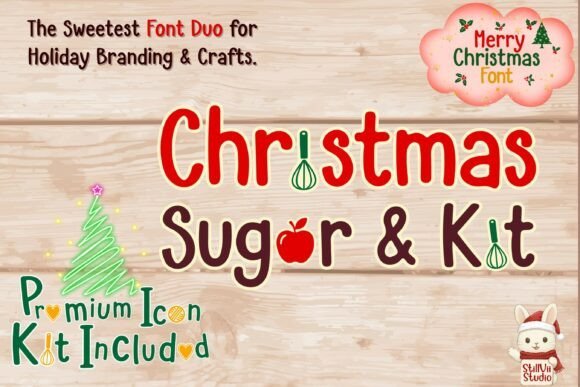
Sprinkle Some Holiday Magic!
As I sat at my kitchen table, surrounded by twinkling lights and the sweet aroma of freshly baked cookies, I couldn’t help but feel a rush of creative energy. The holiday season was in full swing, and I was itching to bring my designs to life with a dash of festive flair. That’s when I stumbled upon the perfect solution: the Christmas Sugar and Kit Duo Font.
This delightful font duo is the ultimate companion for any designer looking to add a spoonful of sweetness to their holiday projects. With the Christmas Sugar font’s soft, bubbly letterforms and the playful handwritten style, you’ll be able to evoke the joy of holiday baking and treats in your designs. Plus, with 52+ classic holiday and baking icons, you’ll have everything you need to create a cohesive and magical visual story.
Christmas Sugar and Kit Duo Font Key Features
- Unique Characteristics: This font includes a combination of elegant and playful styles, ideal for Christmas-themed designs and projects.
- Character Count: Includes a wide range of characters, including uppercase and lowercase letters, numbers, and punctuation marks.
- Language Support: Supports multiple languages, including English, Spanish, French, and more.
Christmas Sugar and Kit Duo Font Review
I recently had the chance to try out the Christmas Sugar and Kit Duo Font, and I must say it’s a mixed bag. There are some lovely aspects to this font, but it also has some limitations.
- The font is perfect for creating a festive atmosphere, especially during the holiday season. The combination of Sugar and Kit fonts gives a unique, playful feel.
- The font is highly customizable, with various options for adjusting the spacing, size, and color.
- The Sugar font has a lovely, hand-drawn feel that’s reminiscent of traditional holiday illustrations.
Limitsations ⚠️
- The Kit font can feel a bit too bold and overpowering at times, especially when paired with the Sugar font.
- The font may not be suitable for long blocks of text, as the Sugar font can be a bit difficult to read at larger sizes.
- The font lacks a more traditional holiday feel, which may not be ideal for those looking for a more classic Christmas aesthetic.
The Christmas Sugar and Kit Duo Font is a fun, playful option for adding some holiday cheer to your designs. While it’s not perfect, it’s a great choice for those looking to create a more whimsical, festive atmosphere. With some careful customization and pairing, this font can be a real showstopper. Just be mindful of its limitations, and you’ll be all set for a holiday design success!
Christmas Sugar and Kit Duo Font Practical Application Guide
The Christmas Sugar and Kit Duo Font is perfect for:
- Christmas party invitations and decorations
- Holiday greeting cards and gift tags
- Seasonal social media graphics and ads